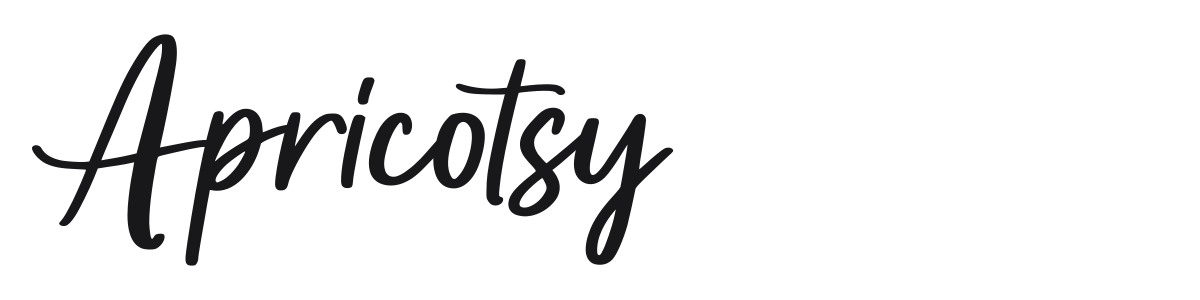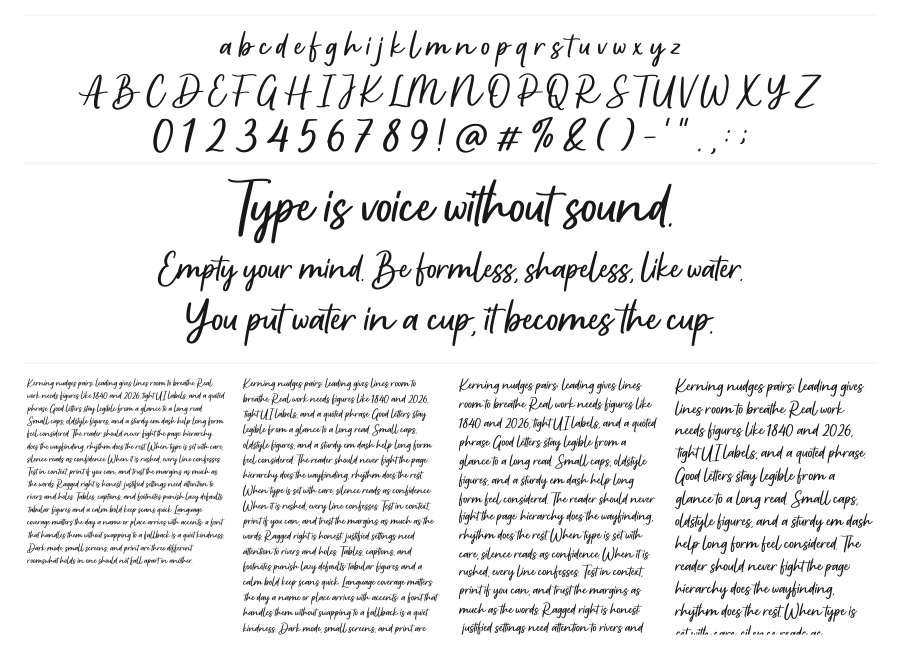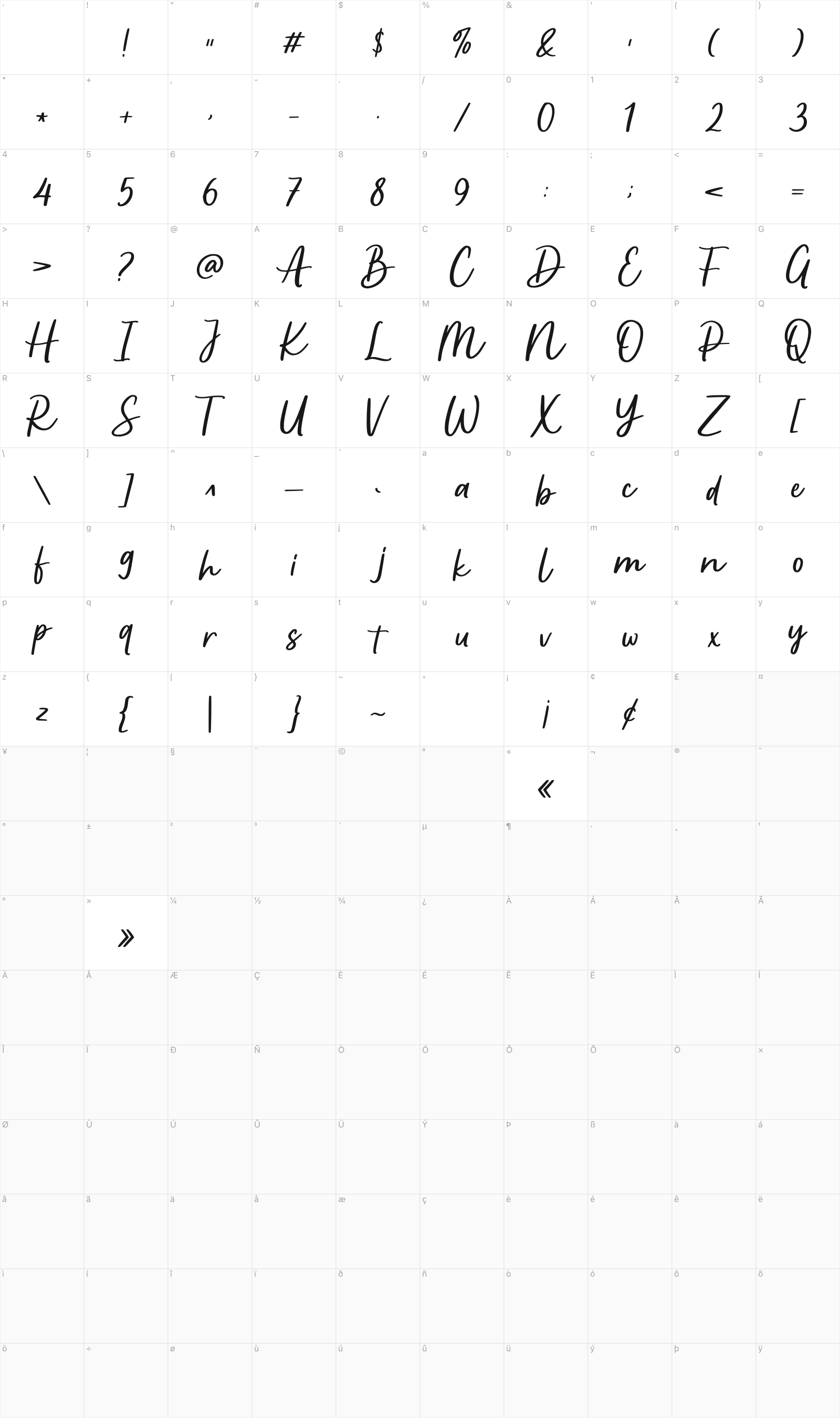
Apricotsy
Apricotsy is a casual connected script with a loose, flowing rhythm and a natural pen-written feel. The strokes stay relatively even in weight, keeping things light and readable without sacrificing personality. It has the kind of effortless warmth that works well on product packaging, logos, and social media graphics.